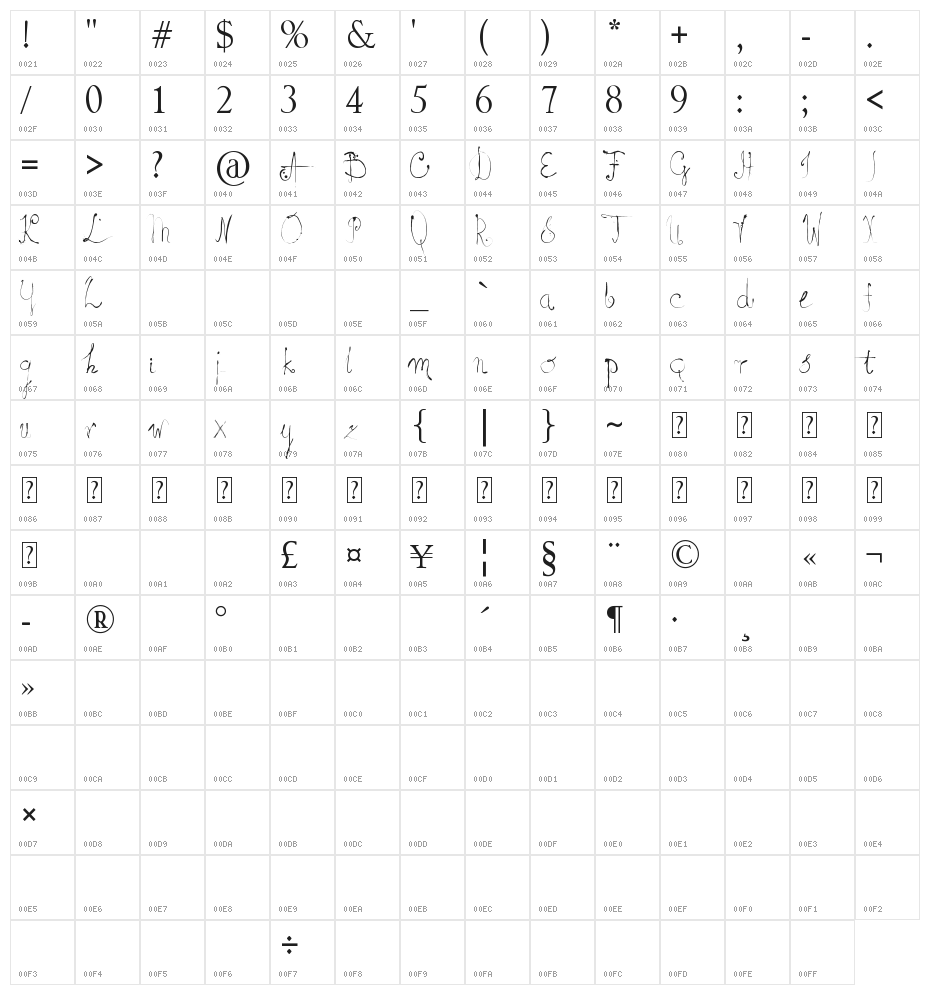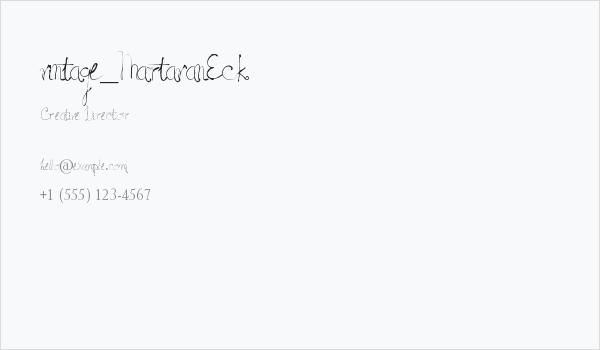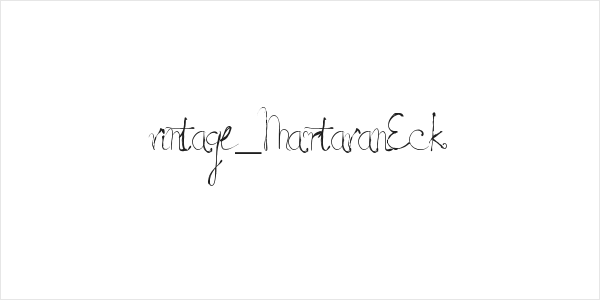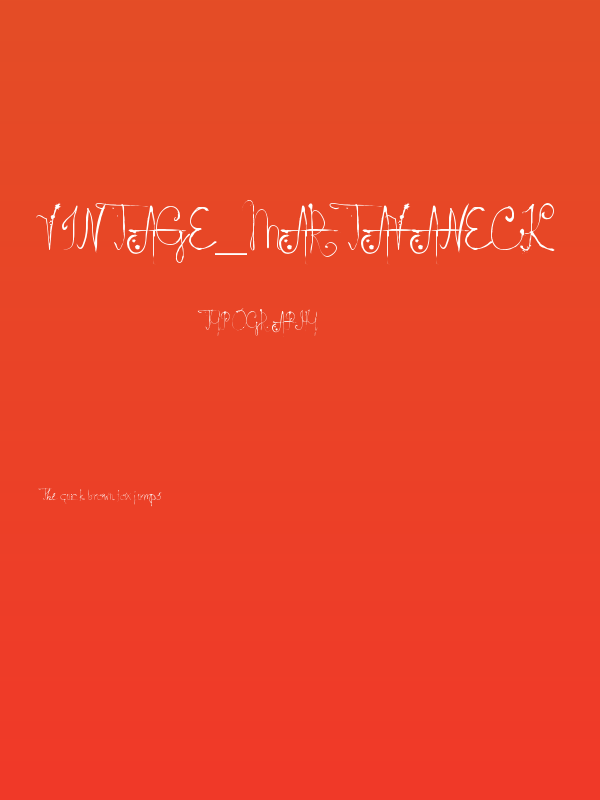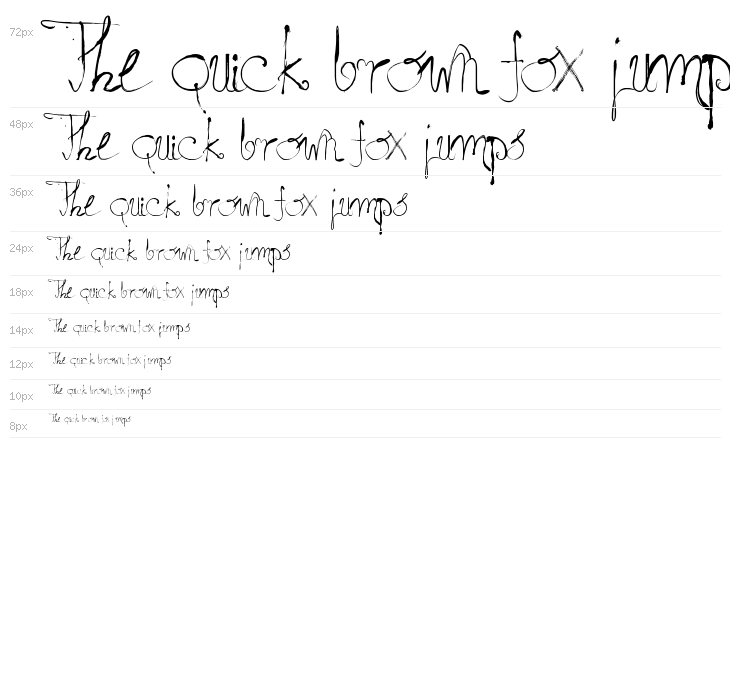
vintage_MartavanEck Font
vintage_MartavanEck Description
This font features an artistic and expressive style, characterized by its fluid, calligraphic strokes and elegant curves. The uppercase letters exhibit a unique blend of sharp and smooth lines, creating a dynamic and visually engaging appearance. The lowercase letters maintain a consistent flow, with some characters extending below the baseline, adding to the font's whimsical nature. The numerals are bold and clear, providing a strong contrast to the more delicate letterforms. Special characters are designed with the same artistic flair, ensuring a cohesive look across all elements. This font's distinct style makes it suitable for creative and decorative applications.